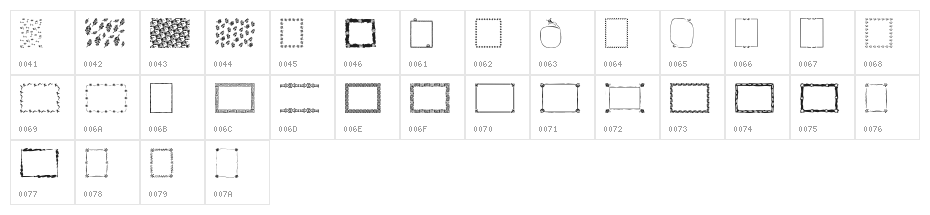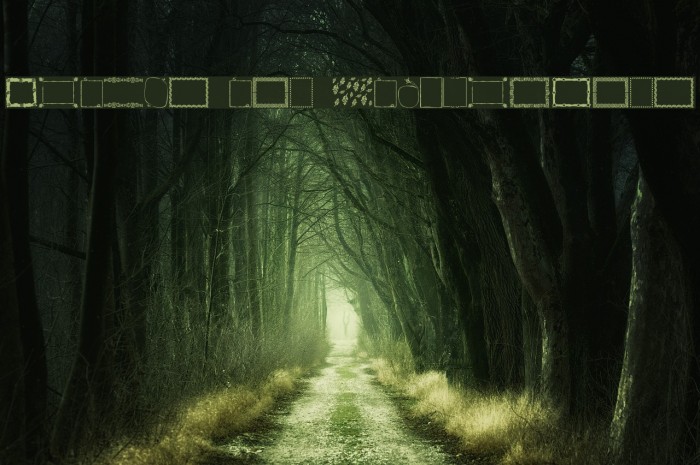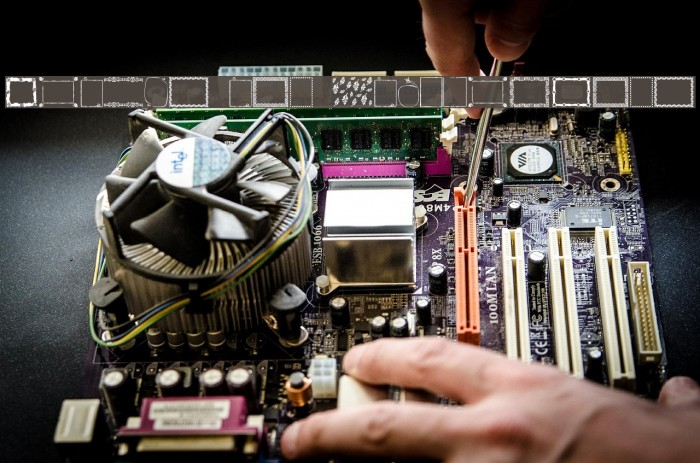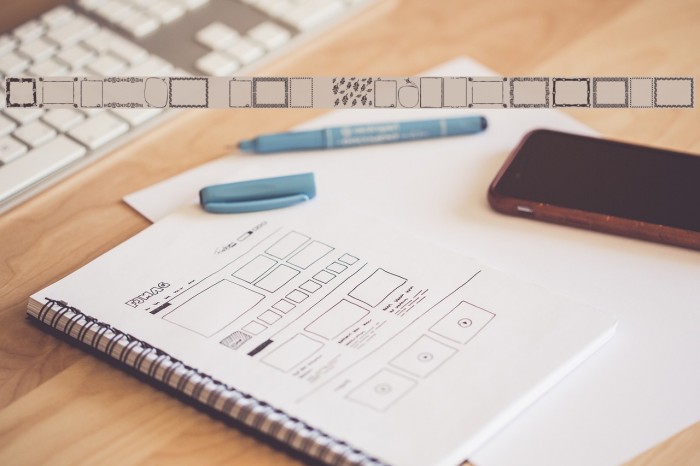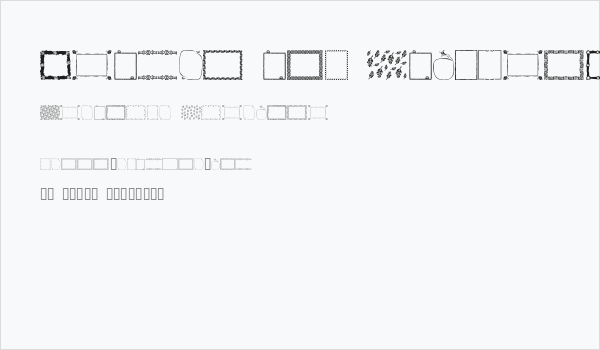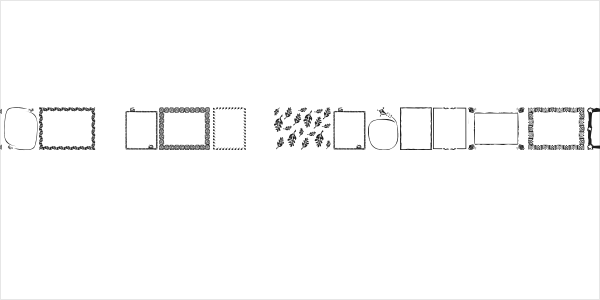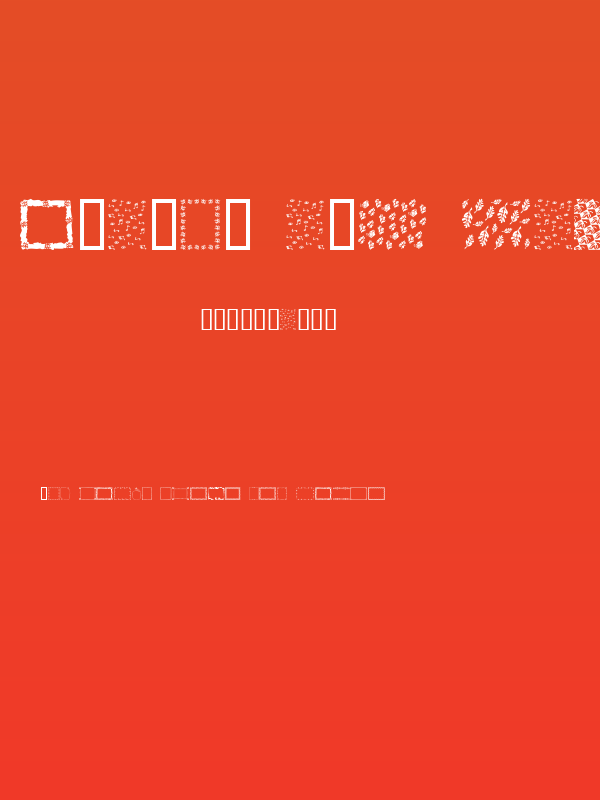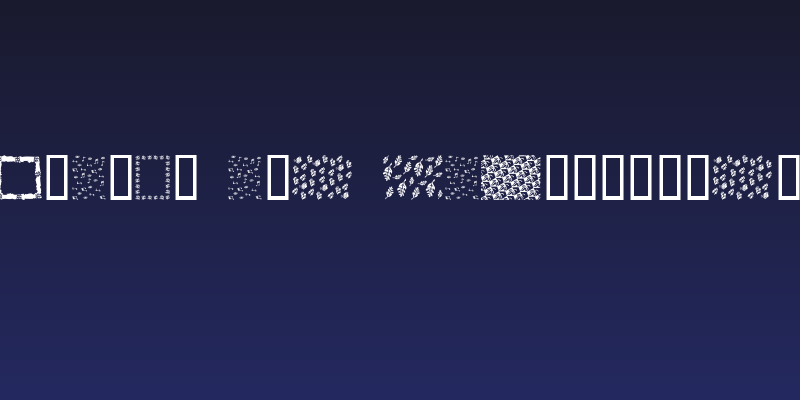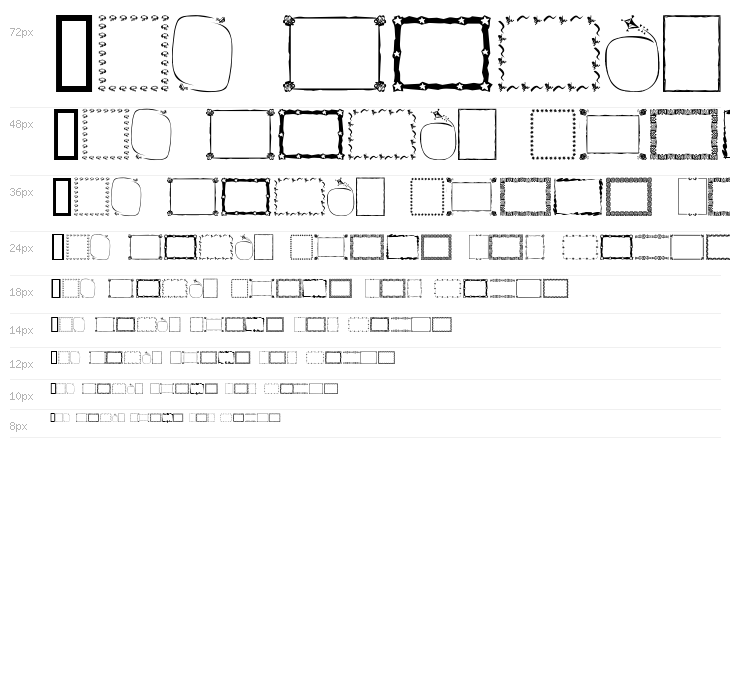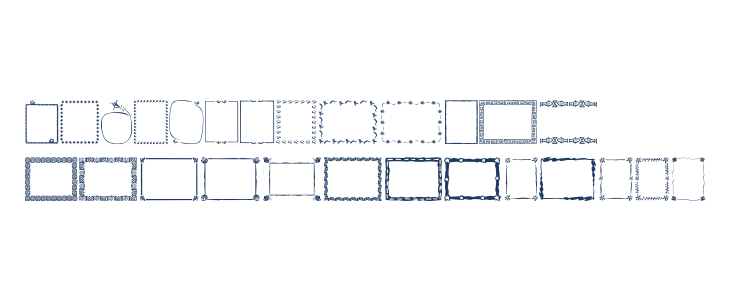
Frames and Backgrounds Font
Frames and Backgrounds Description
A collection of decorative rectangular frames and patterned backgrounds, each with unique border designs ranging from simple solid lines to intricate motifs and textures. The set includes both bold and thin outlines, as well as playful and ornate styles.
| Overall Style | Decorative, Playful, Ornate |
| Use Case | Frames for images or text, backgrounds, borders for documents or creative projects. |
| Proposed Projects | Invitations, scrapbooking, certificates, digital art, web design, posters, greeting cards. |